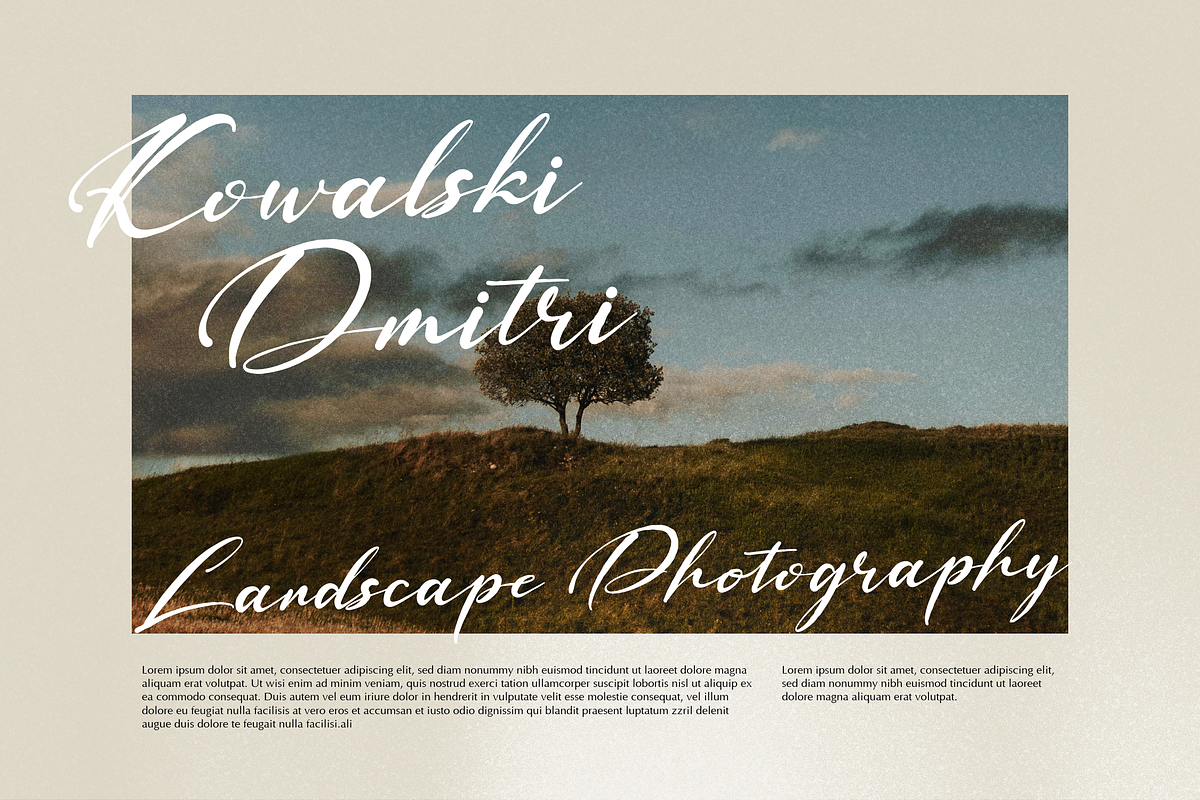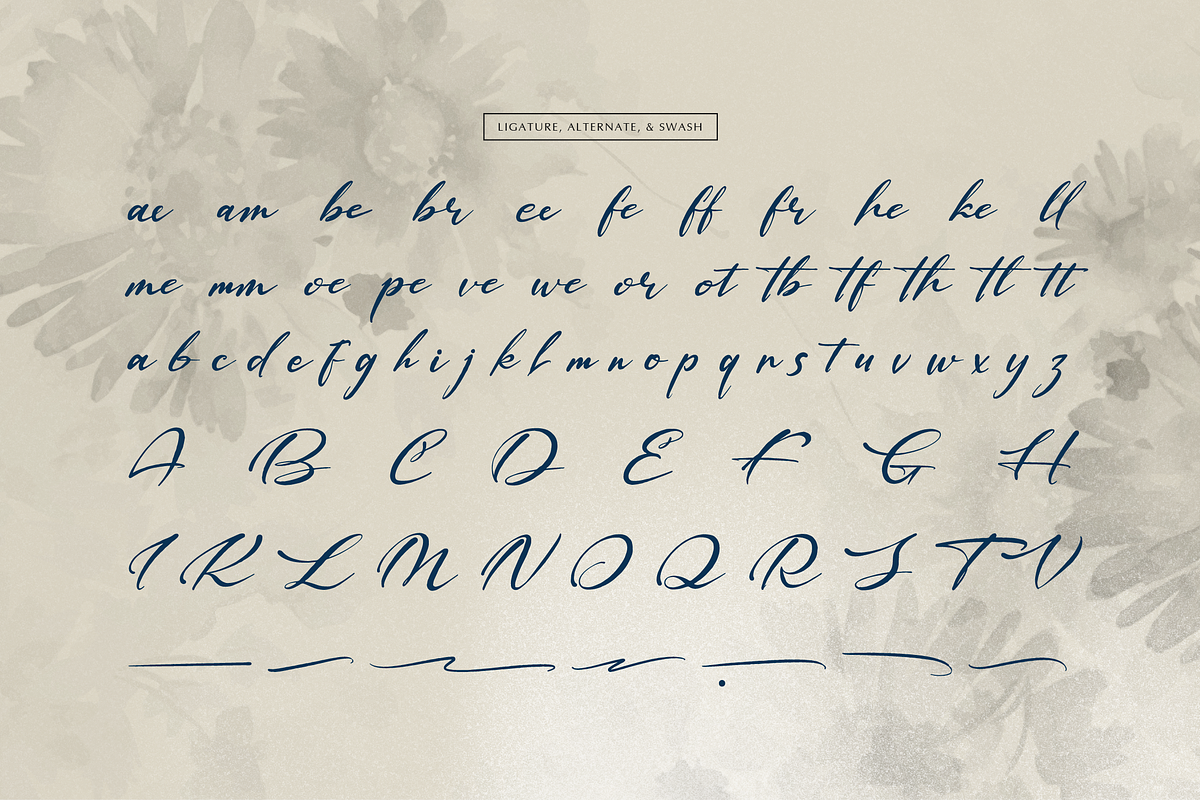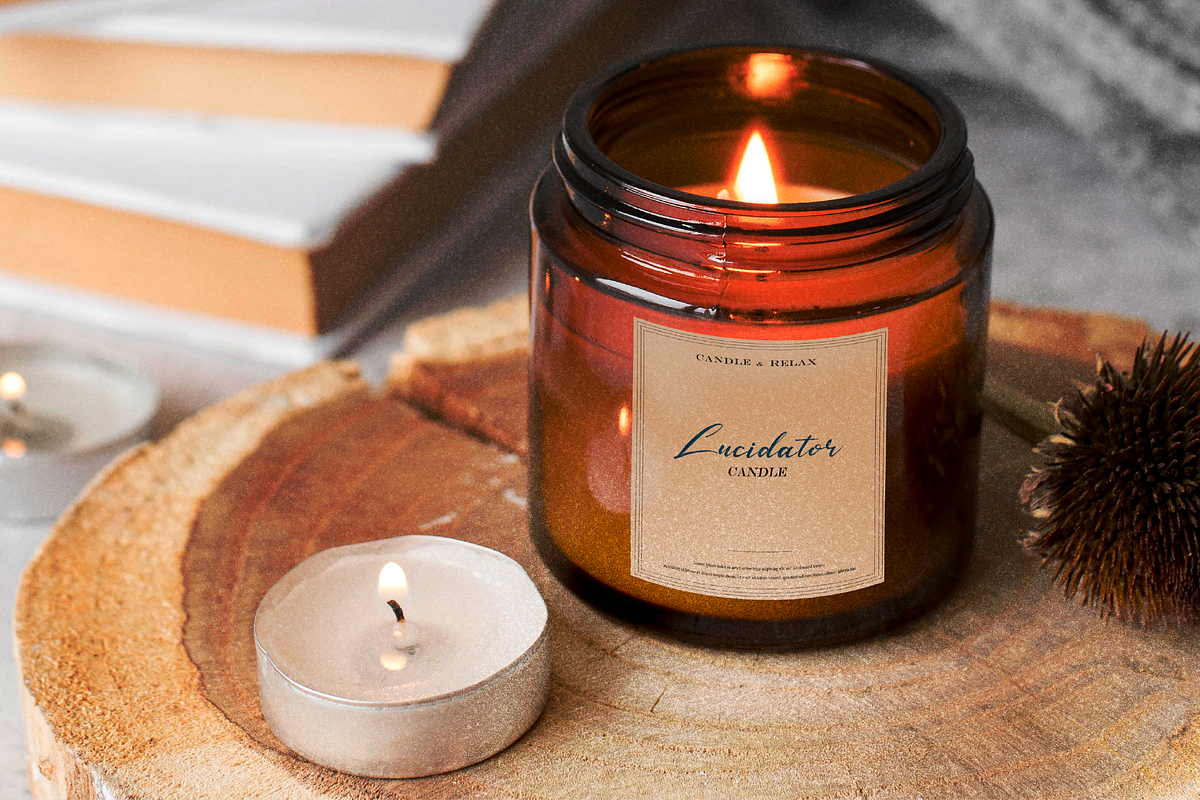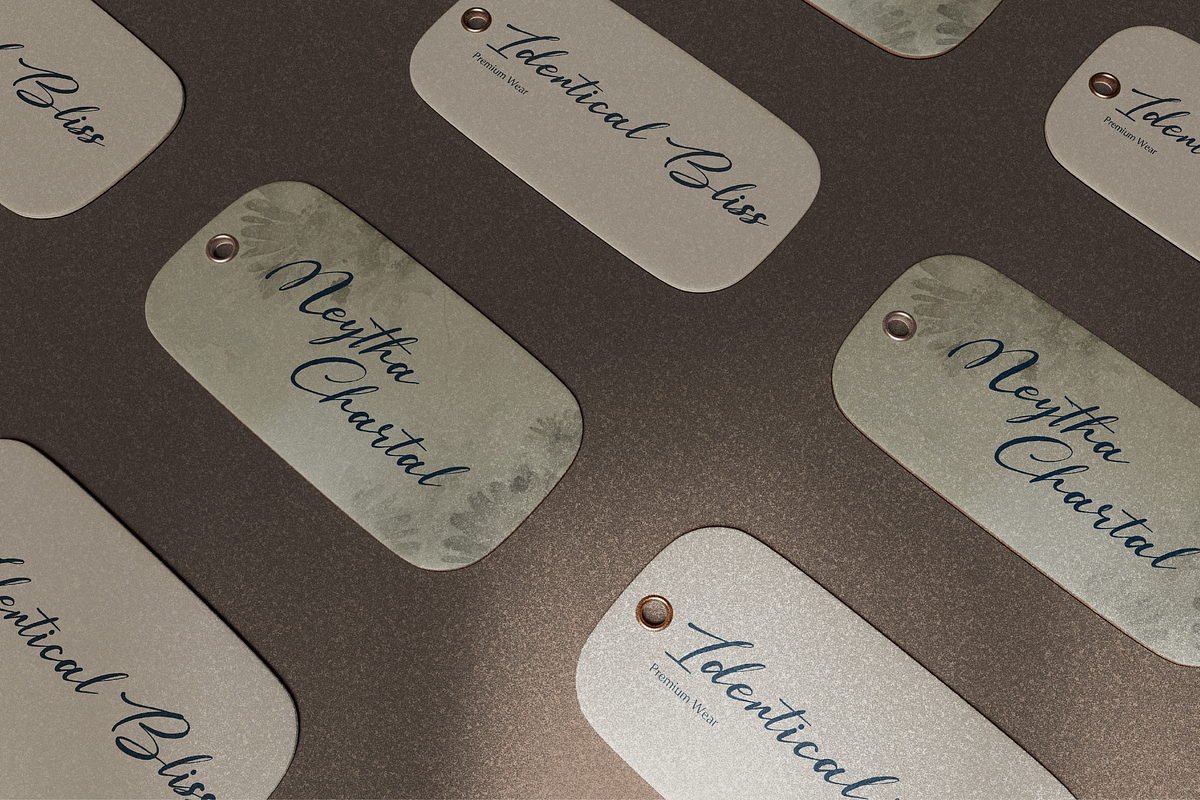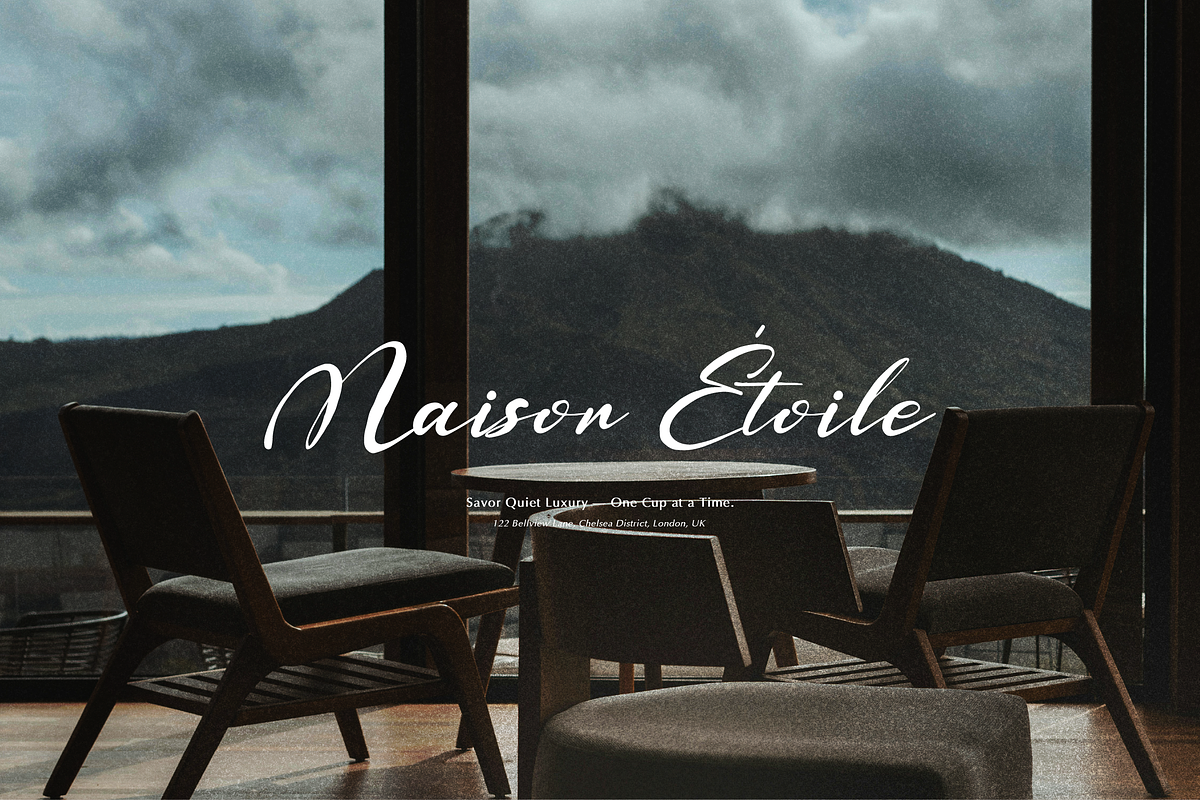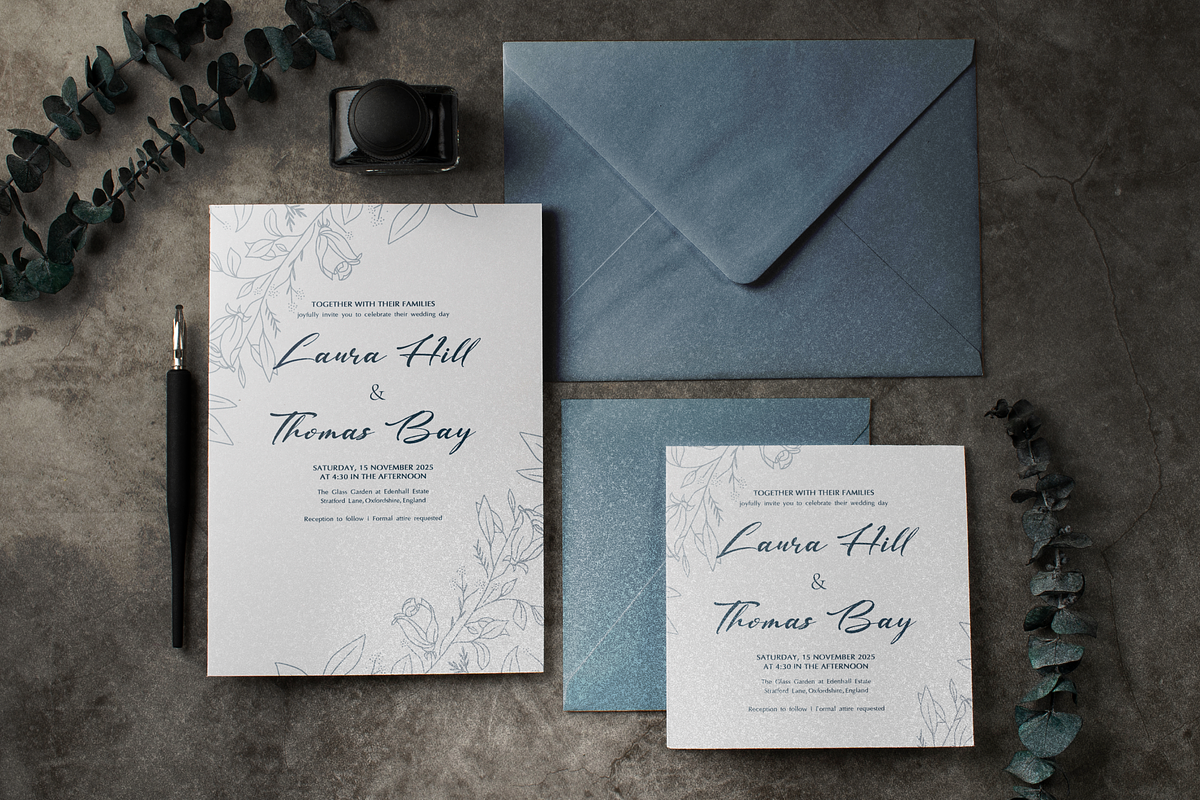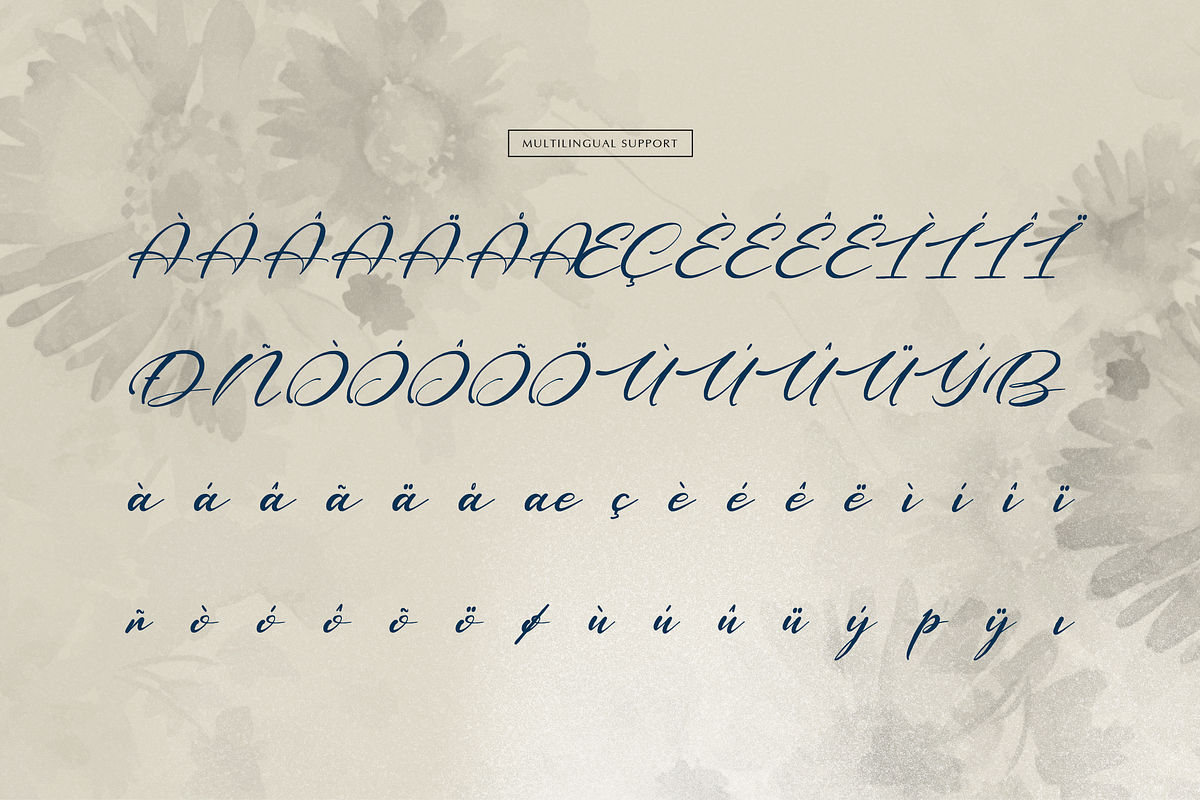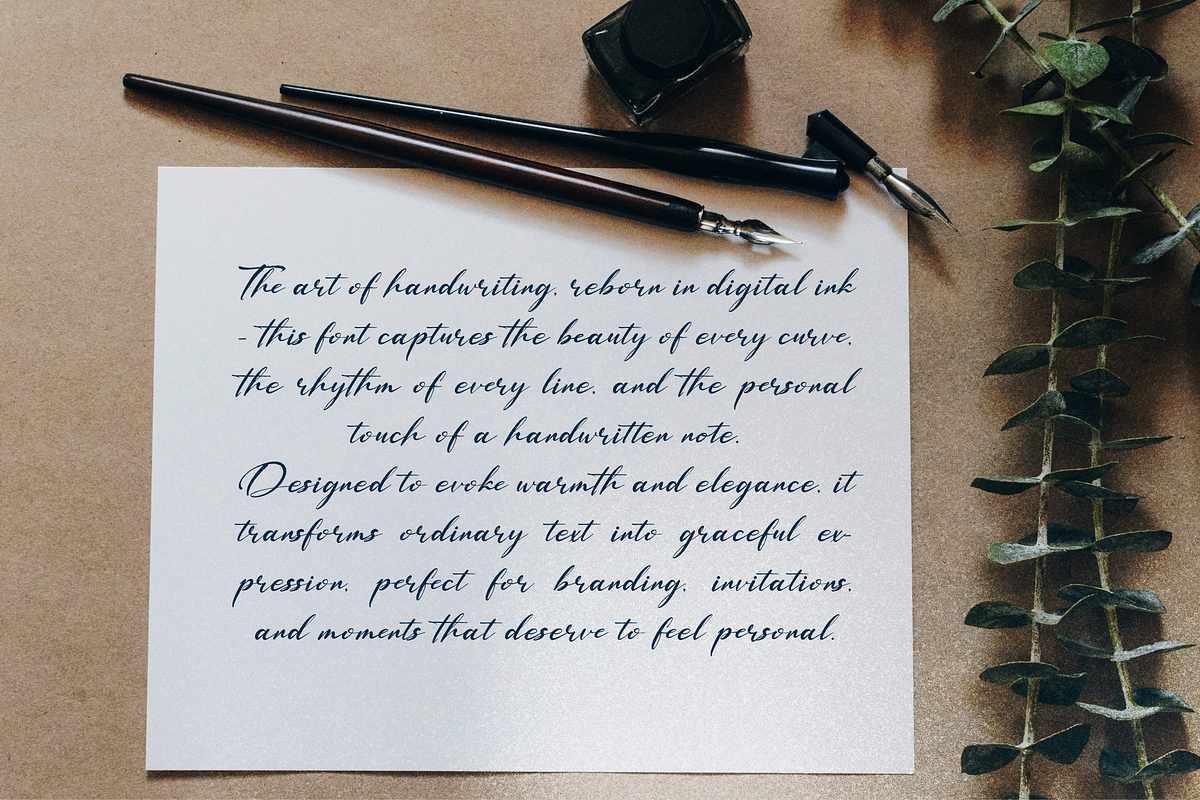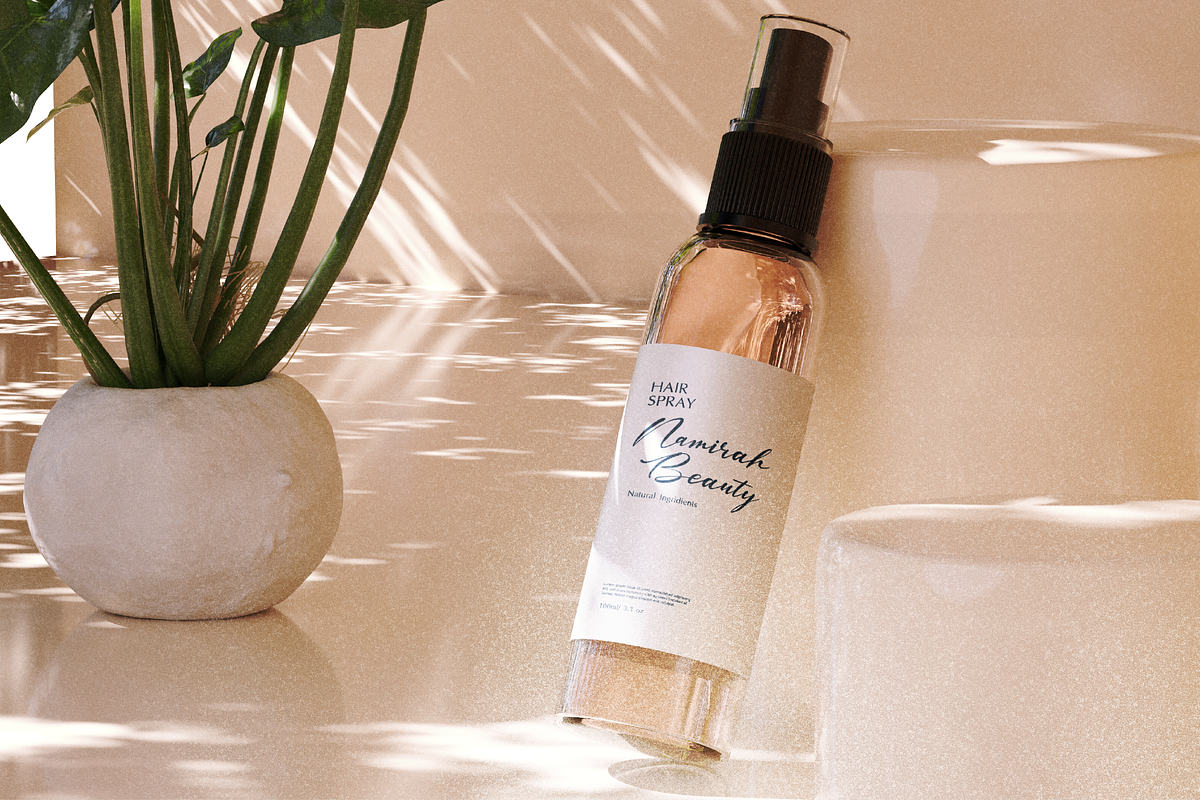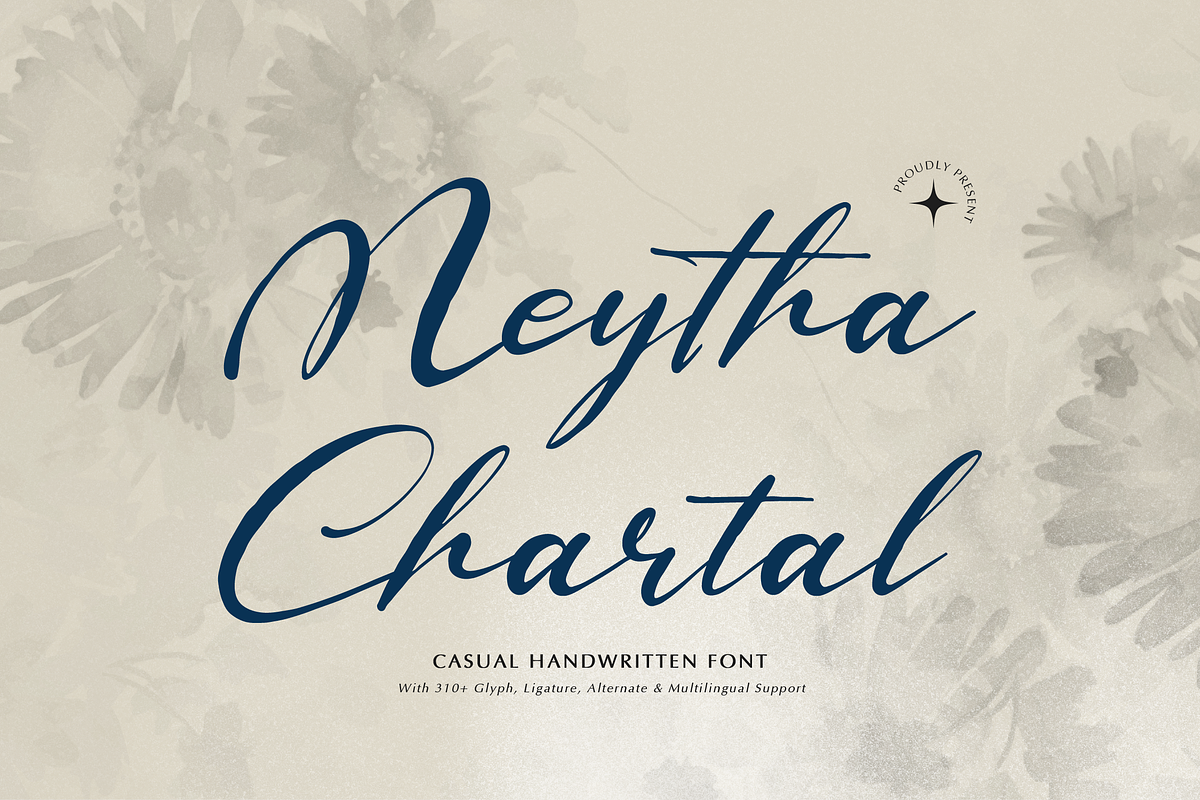
Meytha Chartal | Casual Handwritten
Meytha Chartal | Casual Handwritten, from Gracetypestudio, suitable for any projects such as: logos, branding projects, homeware designs, product packaging, mugs, quotes, posters, shopping bags, t-shirts, book covers, name card, invitation cards, greeting cards, label, photography, watermark, special events, and all your other lovely projects that need a Casual Handwritten Font taste.